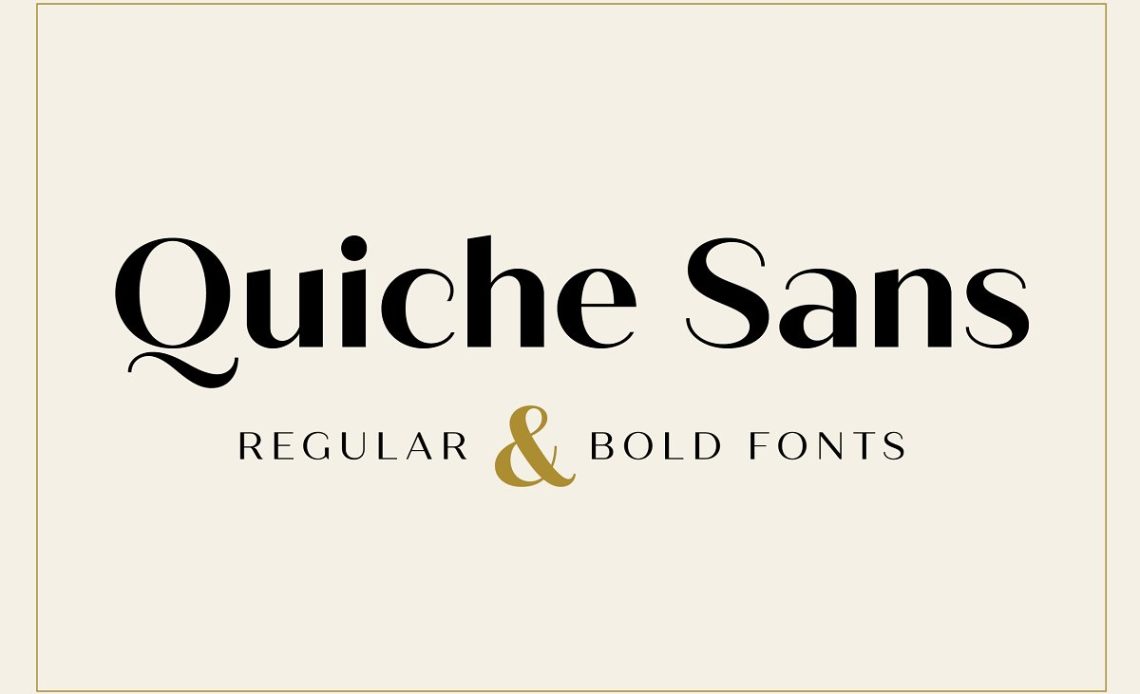
Introducing Quiche Sans Regular & Bold Fonts, the perfect combination of elegance and modernity. Created by the talented designer Adam Ladd, this high-contrast, sans serif typeface is guaranteed to captivate and inspire. And the best part? It's currently 50% off, so you can add this font duo to your collection for only $14.50!
Inspired by the elegance of the serif didone genre, Quiche Sans takes a unique twist by removing the serifs and adding angled stems for a modern and sophisticated appearance. The monoline stroke endings add a touch of finesse, making this font truly stand out.
But Quiche Sans is not just a pretty face. It comes packed with amazing features to enhance your designs. From swash capitals to stylistic alternates, ligatures to fractions, subscripts, and superscripts, this font has it all. With two OpenType .otf fonts included in the purchase - Quiche Sans Regular and Quiche Sans Bold - you'll have everything you need to create stunning designs.